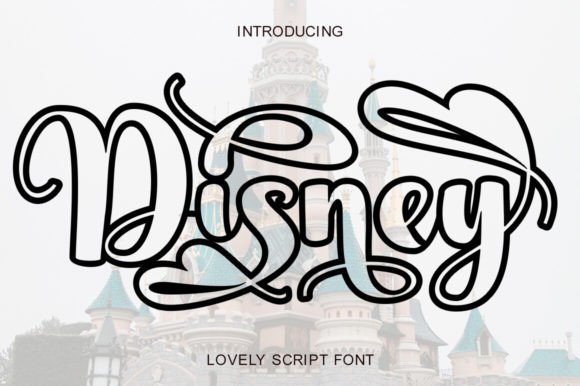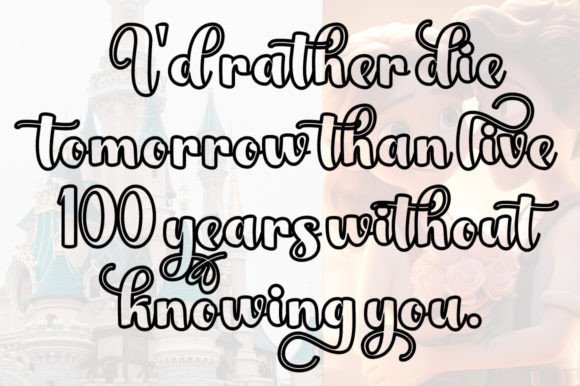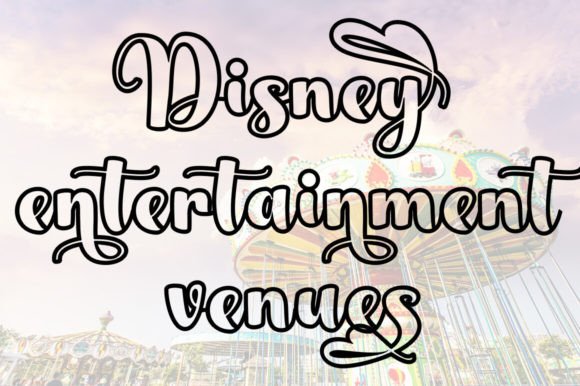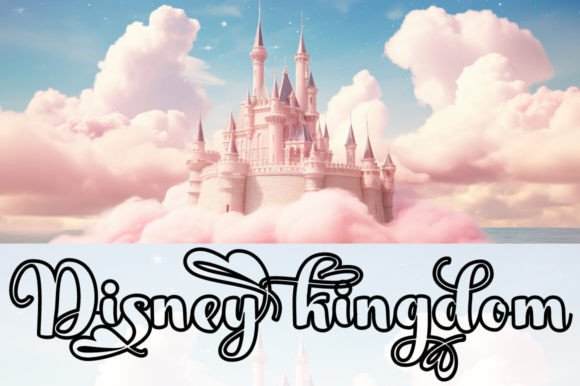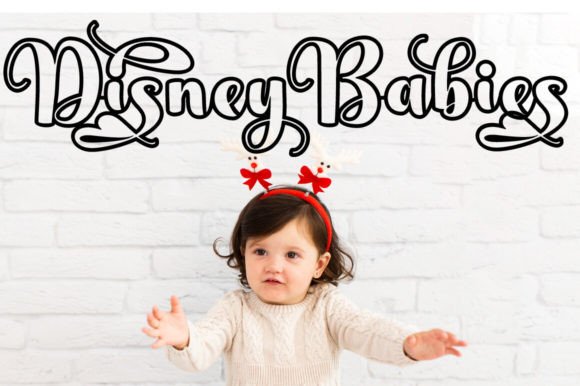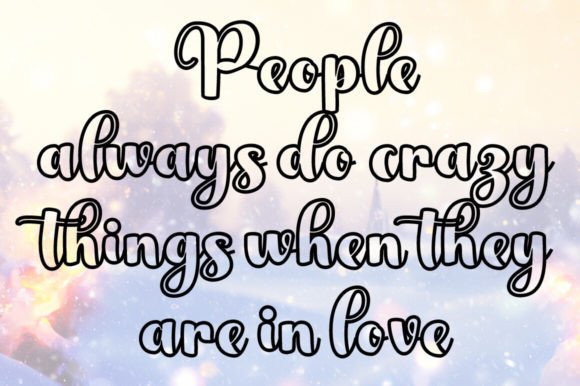
The Magic of Disney Outline Font: Bringing Your Creative Ideas to Life
Have you ever stared at a blank page, feeling the excitement and nervousness of bringing your creative idea to life? Maybe you’re designing a wedding invitation, crafting a children’s book, or creating a social media campaign for your brand. Whatever your project may be, the right font can make all the difference.
That’s where Disney Outline Font comes in – a charming, versatile, and flexible handwritten font that will add a touch of warmth and romance to any design. This delightful font is designed to turn your ideas into stunning works of art, and its PUA coding ensures that you can easily access all the glyphs and swashes. Whether you’re a seasoned designer or just starting out, Disney Outline Font is a valuable tool that will help you create designs that truly stand out.
Disney Outline Font Key Features
- Font Style: A decorative, outline font with a whimsical and playful feel, reminiscent of classic Disney illustrations.
- Unique Characteristics: Features a distinctive outline style with rounded edges and a subtle texture, giving it a unique and eye-catching appearance.
Disney Outline Font Review
At first glance, the Disney Outline Font seems like a charming and whimsical choice for designers. ✨ The font’s unique outline style gives it a distinctive, hand-drawn feel that’s reminiscent of classic Disney animation.
- ✨ The font’s versatility: it can be used for a variety of projects, from children’s book illustrations to advertising campaigns.
- ✨ The font’s unique style: it’s a great choice for designers who want to add a touch of personality and whimsy to their work.
- ✨ The font’s legibility: despite its outline style, the font is still easy to read and understand.
However, there are also some limitations:
- ⚠️ The font may be too playful for certain projects: if you’re working on a project that requires a more serious or professional tone, the Disney Outline Font may not be the best choice.
- ⚠️ The font’s outline style may be difficult to use for small text: the outline can make small text appear blurry or difficult to read.
- ⚠️ The font may not be suitable for digital use: the outline style can be pixelated or distorted when used on digital screens.
Overall, the Disney Outline Font is a charming and versatile choice for designers who want to add a touch of personality to their work. While it may have some limitations, it’s a great choice for projects that require a playful or whimsical tone.
For the best results, use the Disney Outline Font for titles, headings, and other decorative text elements.
Experiment with different font sizes, colors, and styles to create visually appealing designs.
Combine the Disney Outline Font with other creative elements, such as illustrations and graphics, to add depth and interest to your designs.
The Disney Outline Font is ideal for:
Children’s book covers and illustrations
Party invitations and decorations
Alternatives to Disney Outline Font
Comic Sans MS is a sans-serif font designed to resemble handwriting. It’s often used for informal or humorous purposes. Compared to Disney Outline Font, Comic Sans MS has a more casual feel and is not typically used for formal or professional projects.
Great Vibes is a modern script font that’s perfect for creating a fun and playful atmosphere. While Disney Outline Font is more childlike and nostalgic, Great Vibes has a more sophisticated feel. Use Great Vibes for projects that require a touch of whimsy and elegance.